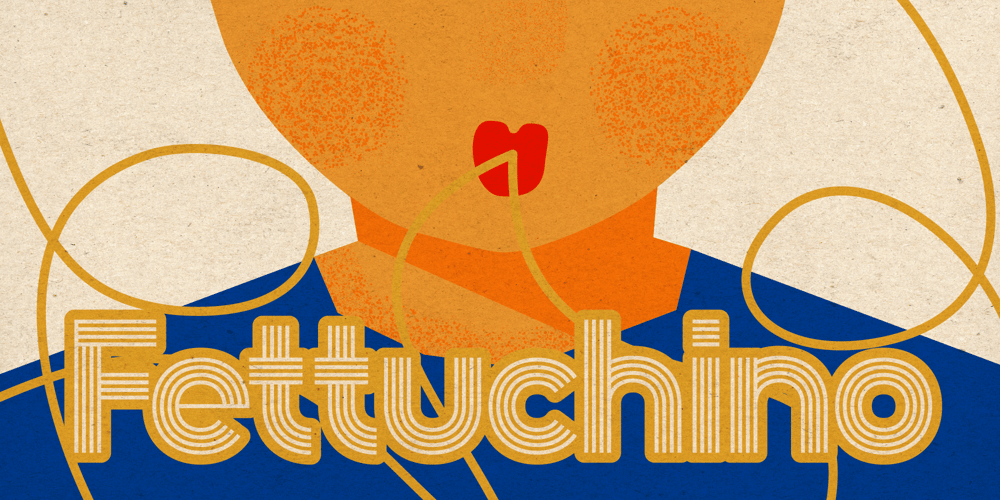
Fettuchino Font Family was designed by Tatiana Yunina and published by Mira. Fettuchino contains 2 styles and family package options. The font “Fettuchino” I’ve created embodies a character inspired by exquisite spaghetti and fettuccine. Its unique structure, devoid of serifs, aims to convey effortless elegance and precision reminiscent of Italian cuisine. The lines of this font are clear and sharp, creating an impression of refinement and order.This creation is rich in visual texture, resembling the delicate threads of pasta, aligning themselves along the letterforms. Each stroke of this font is infused with meticulous detailing, evoking an attention to detail akin to the preparation of sophisticated dishes.Modern and minimalist, this font invites you into a world of simplicity and sophistication, perfect for crafting refined design projects where each letter is akin to a thin ribbon of dough, carefully crafted by a master. It beckons you to immerse yourself in the atmosphere of Italian culinary harmony, where purity of form and simplicity become the key to sophistication.